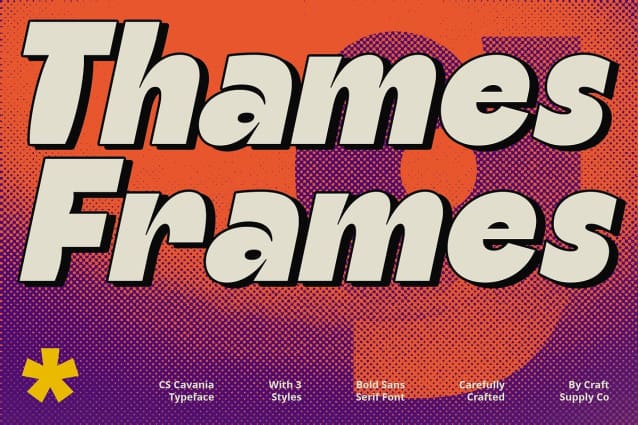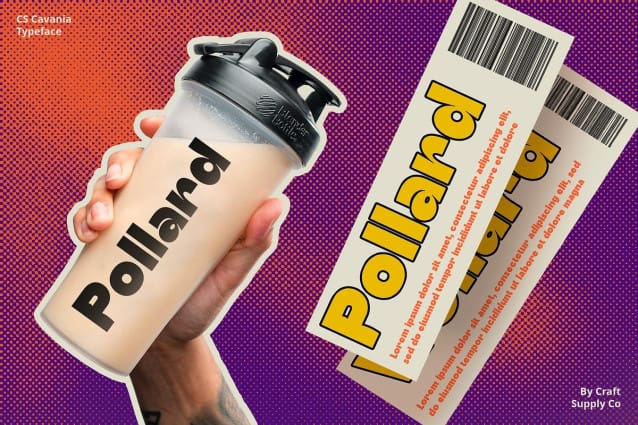
CS Cavania Font
CS Cavania Font is a bold sans-serif font designed to make a statement with its strong thickness and boldness. Ideal for drawing attention to title text or sections that need to stand out in a design, this font combines modernity with clarity.
Strong and Bold Design The boldness of CS Cavania adds strength and clarity to the text, making it perfect for emphasizing important information. Whether used in headlines, banners, or logos, this font ensures that your message is clear and impactful.
Modern and Clean Look With its sans-serif design, CS Cavania provides a modern and clean look that is perfect for contemporary designs. The absence of serifs gives the font a sleek and sophisticated appearance, making it suitable for a wide range of design projects.
Ideal for Drawing Attention CS Cavania is ideal for drawing attention to title text or sections that need to stand out in a design. Its bold design ensures that your message is noticed, making it a versatile choice for any design project.
Enhance Your Designs with CS Cavania Whether you’re designing posters, banners, or digital interfaces, CSCavania can help you create designs that are bold and impactful. Its strong thickness and boldness make it perfect for emphasizing important information and ensuring that your message is clear and effective.